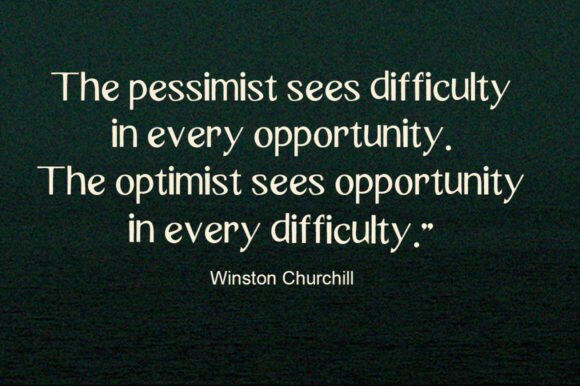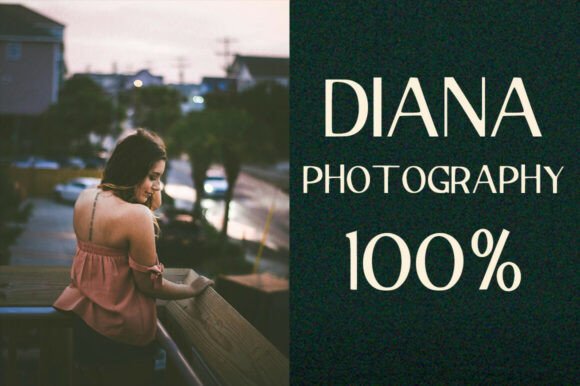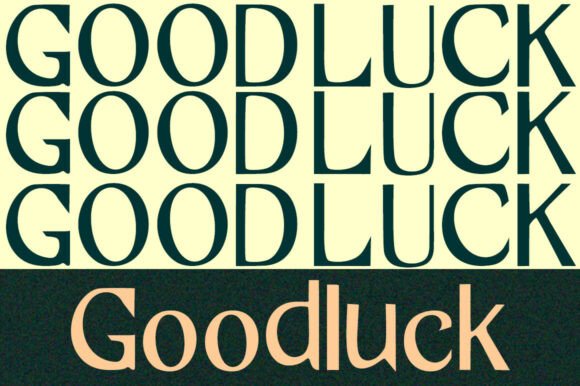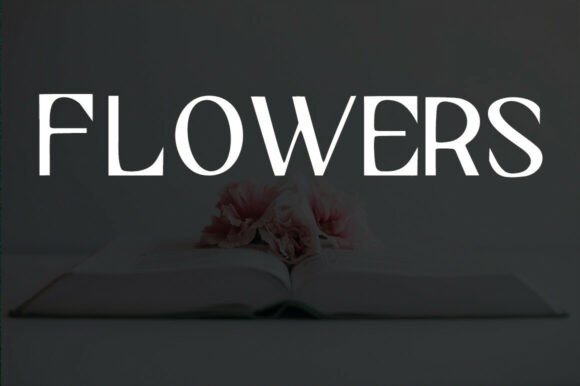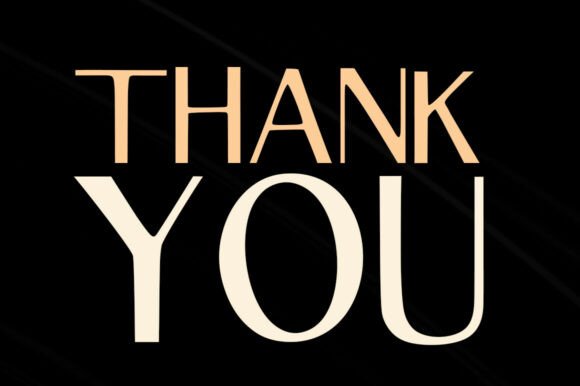
Introduction to Sans Serif Classic Font
Refine your visual narrative with Sans Serif Classic, a sophisticated display typeface that captures a “timeless-and-tailored” soul.
This font features high-contrast letterforms uniquely characterized by rhythmic, sharp-tapered terminals and elegant geometric proportions that bridge the gap between mid-century editorial design and modern high-fashion branding With its balanced structural weight and authoritative personality, Sans Serif Classic is the premier choice for independent luxury boutique identities, premium lifestyle magazine headers, high-end cosmetic packaging, and high-impact “stately-and-streamlined” social media content.
Key Features of Sans Serif Classic Font